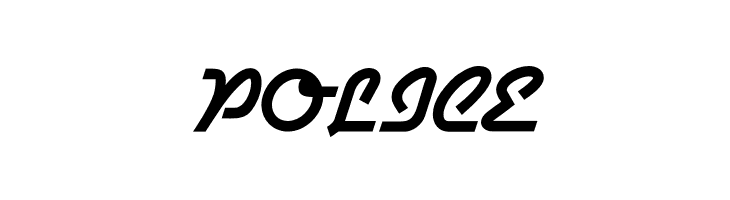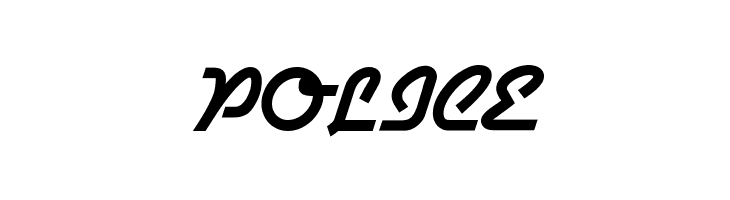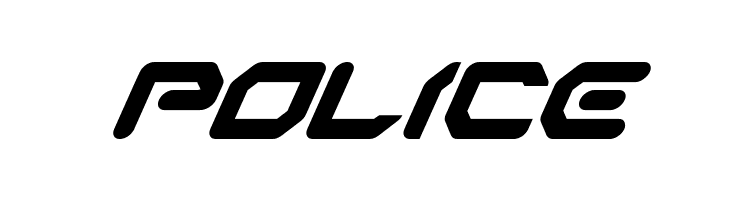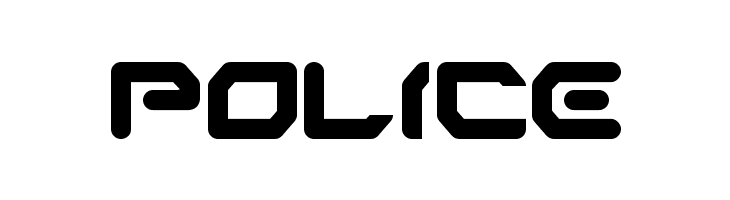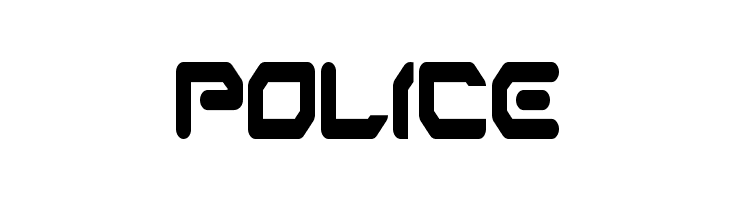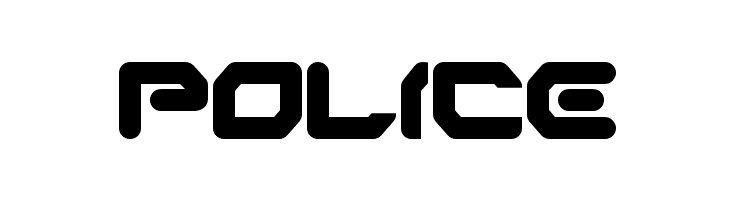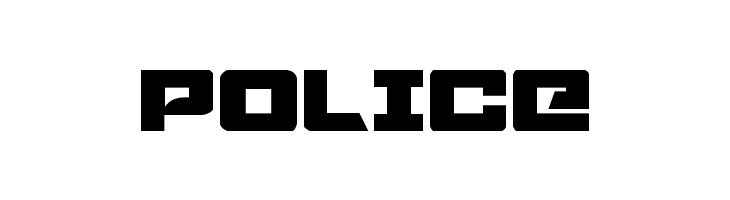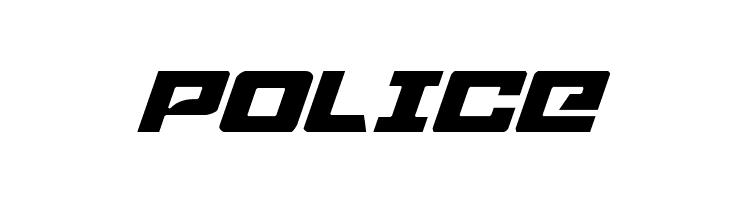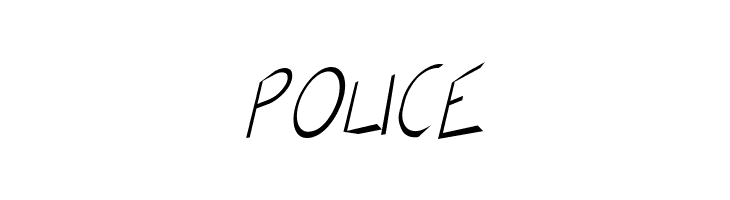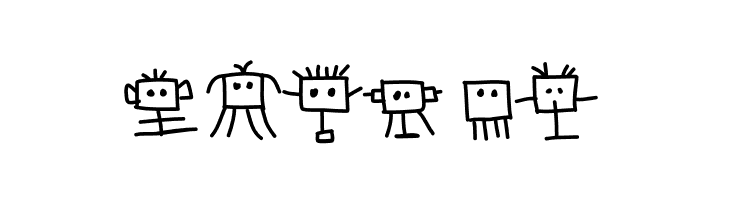
A bold, italicized font with a futuristic and dynamic design.
A bold, semi-italic font with a geometric and dynamic style.
A bold, modern font with geometric and angular characteristics.
A bold, dynamic script font with slanted, italicized characters and strong visual impact.
A bold, cursive font with a dynamic and flowing style.
A bold, 3D outlined font with a futuristic and dynamic style.
A bold, dynamic font with a three-dimensional effect and sharp angles.
A bold, slanted font with a dynamic and aerodynamic style.
A bold, 3D font with angular lines and a shadowed effect for depth.
A bold, futuristic font with geometric outlines and angular cuts.
A bold, futuristic font with a chrome-like, multi-line design.
A bold, angular font with a dynamic, forward-leaning slant and condensed width.
A bold, slanted font with a modern, dynamic style.
A bold, italicized font with a futuristic gradient and striped design.
A bold, dynamic font with a half-tone effect and slanted style, perfect for energetic designs.
A bold, futuristic font with sharp angles and a slanted orientation, perfect for modern, high-tech designs.
A bold, geometric outline font with a futuristic and dynamic style.
A bold, futuristic font with a dynamic, three-dimensional effect.
A bold, angular font with a dynamic, italicized style.
A futuristic, geometric font with bold, angular shapes and a digital aesthetic.
A bold, futuristic font with geometric, rounded characters.
A futuristic, geometric font with bold, angular shapes and a condensed form.
A bold, italic, futuristic font with geometric shapes and a dynamic style.
An elegant cursive font with ornate uppercase and smooth lowercase letters.
A whimsical, hand-drawn font with tall, narrow characters and playful details.
A playful, hand-drawn font featuring cartoon animal faces and simple shapes.
A playful, hand-drawn font with characters resembling quirky robots.
A chaotic and expressive handwritten font with irregular strokes.
A playful, quirky handwritten font with irregular, elongated letterforms.
A bold, playful font with a handwritten, graffiti-like style.
A dynamic, brush-like font with an expressive, hand-drawn style.
An elegant, flowing script font with cursive and calligraphic elements.
A bold, playful font with thick, rounded strokes and a friendly appearance.